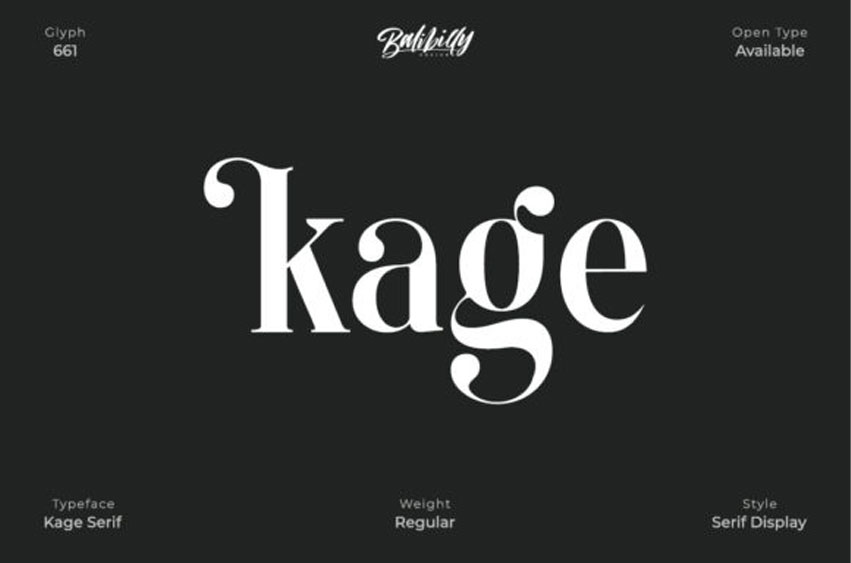
Kage Regular Font
Kage Regular Font is an elegant, authentic, and beautiful serif font. It looks beautiful on a variety of designs requiring a personalized style, such as wedding invitations, thank you cards, weddings, greeting cards, logos, and so on.
Kage is PUA encoded, which means you can access all of the glyphs and swashes with ease!